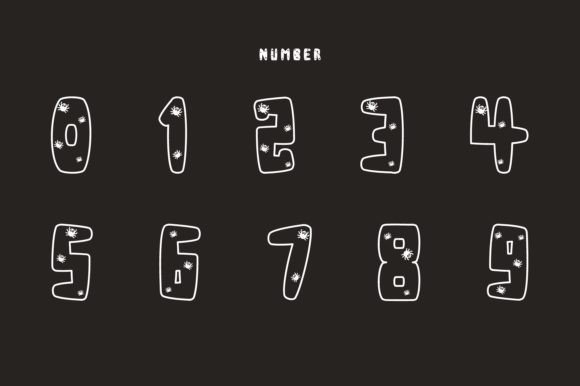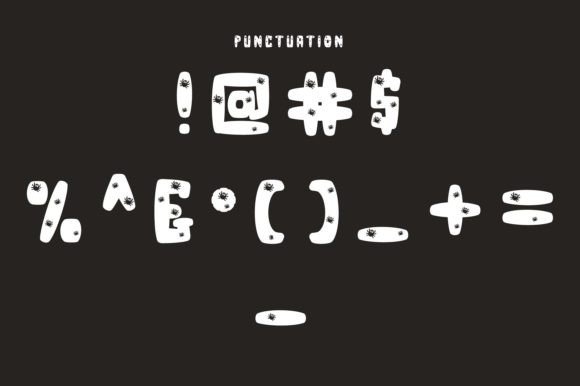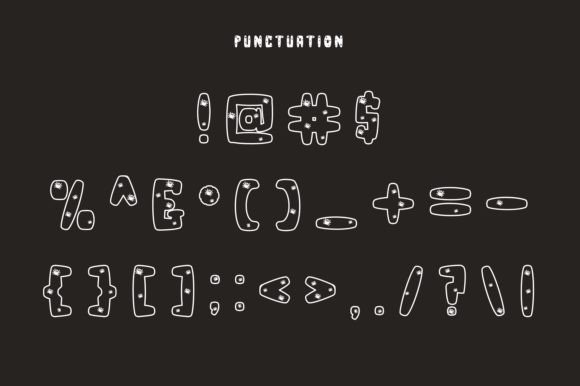
Introduction to Little Spider Font
As a designer, have you ever been in the middle of a creative project, staring at a blank canvas, and suddenly, a spark of inspiration hits you? That’s exactly what happened to me when I stumbled upon the Little Spider Font. Its quirky, playful vibe instantly caught my attention, and I knew I had to share it with fellow designers.
With the Little Spider Font, you can add a touch of whimsy and authenticity to your designs, making them stand out from the crowd. Whether you’re working on a Halloween project, a blog post, or a logo, this font is sure to bring a smile to your face and a twinkle to your designs. And the best part? It’s a high-quality design resource that’s available for free download, complete with a transparent background, making it easy to integrate into your creative project.
Key Features of Little Spider Font
- High-quality design: Little Spider Font is a carefully crafted font suitable for creative projects, offering a unique and eye-catching design.
- Transparent background: The font’s transparent background allows for easy customization and integration into various design elements.
- High-resolution design: The font is designed at 300 DPI, making it suitable for high-resolution printing and digital applications.
- Unique characteristics: The font’s distinctive design and intricate details make it an excellent choice for designers looking to add a creative touch to their projects.
- Perfect for creative projects: Little Spider Font is ideal for use in graphic design, digital art, and other creative projects where a unique and high-quality font is required.
Honest Review: Little Spider Font
I recently stumbled upon the Little Spider Font while searching for a quirky design resource for a creative project. I was thrilled to find that it’s available for free download, which made it an instant hit in my book.
The font itself is a delight to work with. It has a transparent background, which makes it easy to customize and integrate with any design. I’ve used it for a few personal projects, and the results have been nothing short of amazing. ✨
Some of the key features that I love about the Little Spider Font include:
- High quality vector design
- Unique and quirky aesthetic
- Easy to use and customize
However, I do have a few limitations to note. ⚠️ The font is not suitable for formal or professional projects, as it’s a bit too playful and whimsical. Additionally, it may not be compatible with all design software or systems.
Overall, I’m thoroughly impressed with the Little Spider Font. It’s a great design resource for creative projects, and I would definitely recommend it to anyone looking for a fun and quirky font to add some personality to their work.
The Little Spider Font is a unique, high-quality design resource ideal for creative projects that require a playful, whimsical touch. With a transparent background, this font is perfect for overlaying on images or using as a standalone element.
To maximize the potential of the Little Spider Font, experiment with different font sizes, colors, and combinations to create unique and eye-catching designs.
Common Use Cases for the Little Spider Font
The Little Spider Font is ideal for use in children’s book illustrations, party invitations, social media graphics, and other creative projects that require a playful, whimsical touch.
Yes, the Little Spider Font has a transparent background, making it easy to use on various backgrounds and designs. This feature allows you to create a seamless and professional-looking design, perfect for creative projects that require a high level of customization.